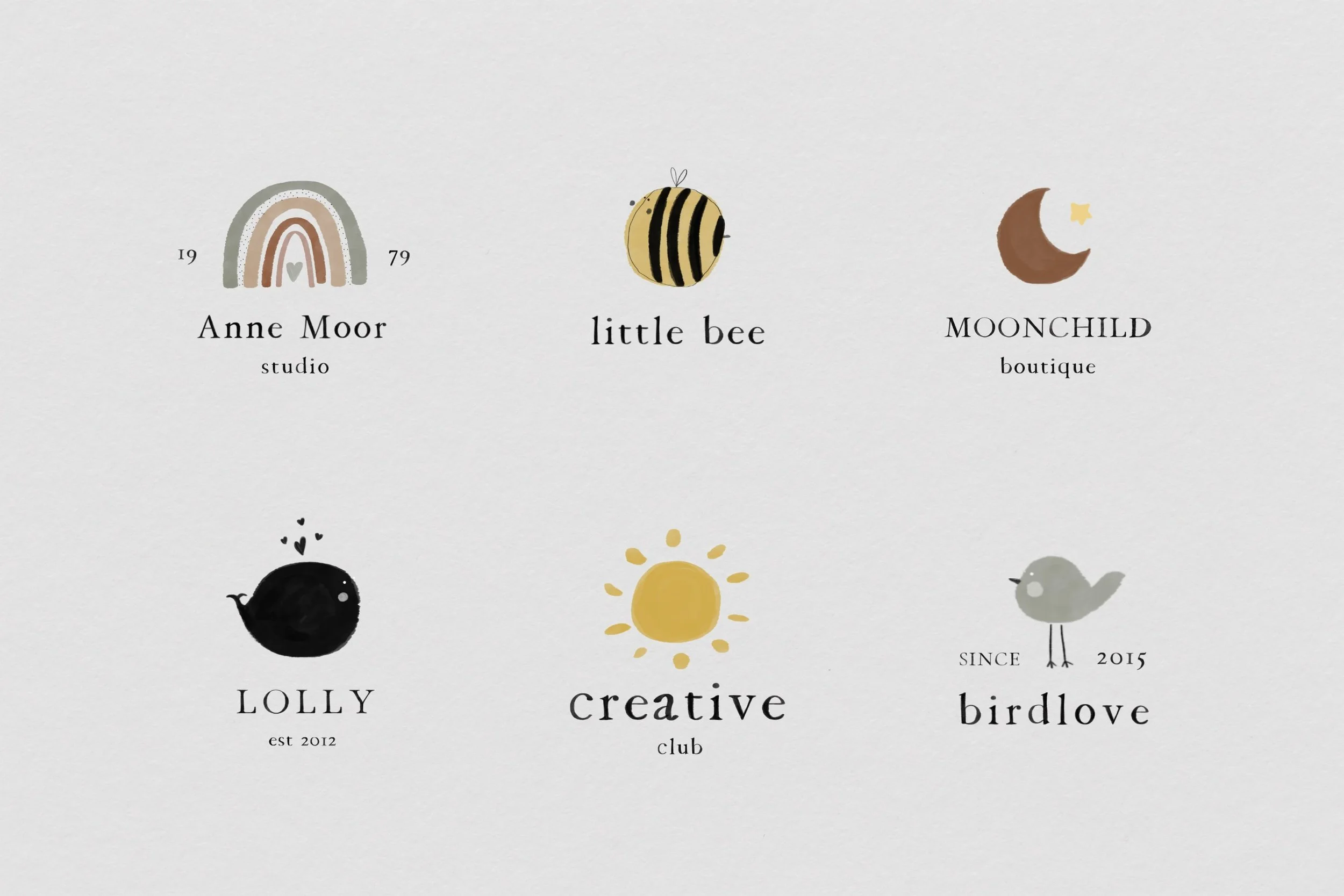
LIttle Bee - Kids Watercolor SVG Font
Discover the irresistible charm of Little Bee, the svg font that captures the essence of creative expression. With each letter serving as a raster bitmap font, painstakingly painted over and over, Little Bee offers an unparalleled level of detail and uniqueness. Its new collection of serifs and whimsical illustrations make it a standout choice for those seeking to infuse their work with personality and craftsmanship. Make a statement with this one-of-a-kind display serif typeface.